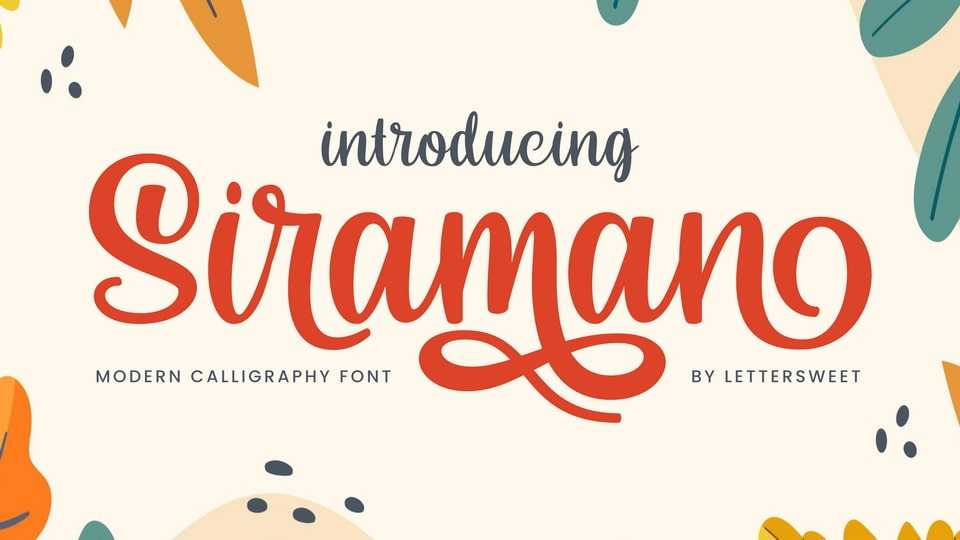
Siraman Font › Fontesk – Download Grátis
Download Siraman font, a captivating handwritten typeface that’s a creative game-changer. Packed full of alternative styles, Siraman injects an irresistible charm into your designs